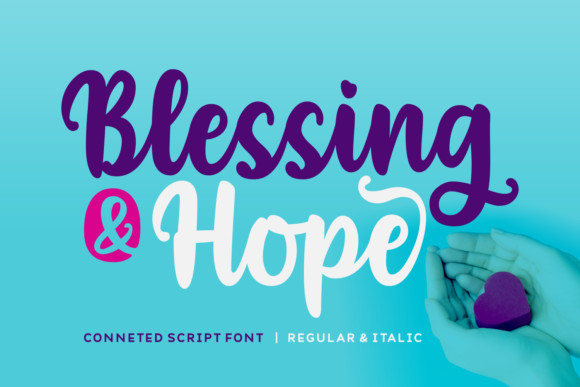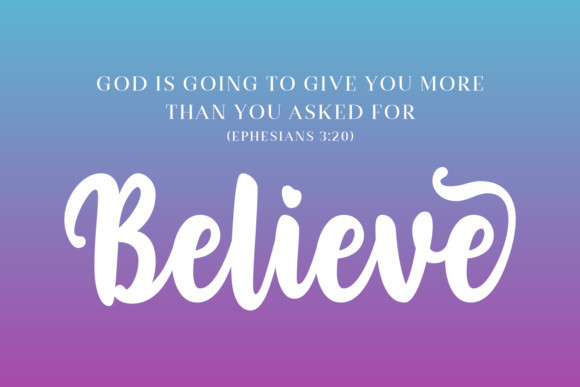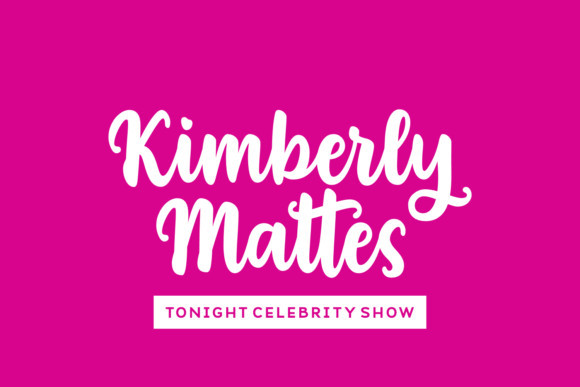
Blessing & Hope Font
Blessing & Hope FontBlessing & Hope is a fresh, unique script with a carefree attitude and a playful edge.
Perfect for adding a quirky but casual feel, it comes with a large selection of natural-looking ligatures.